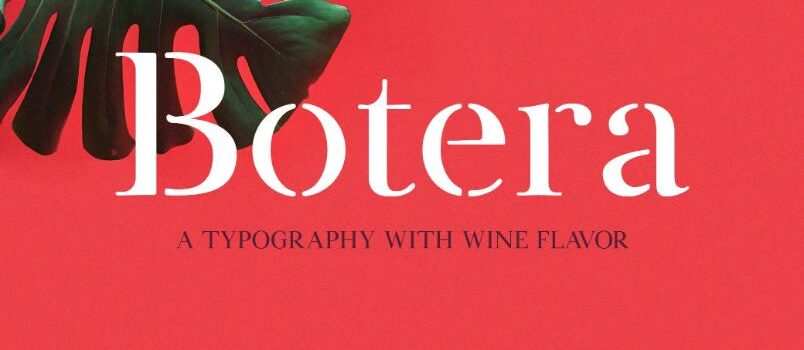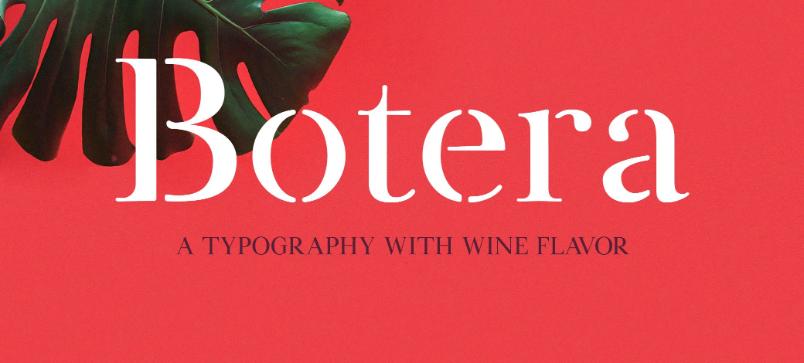
Today’s free font is Botera. This beautiful typeface comes with both regular serif and stencil font options—perfect for elevating your design work! Originally developed for a wine production project, it’s now available for your creative needs.